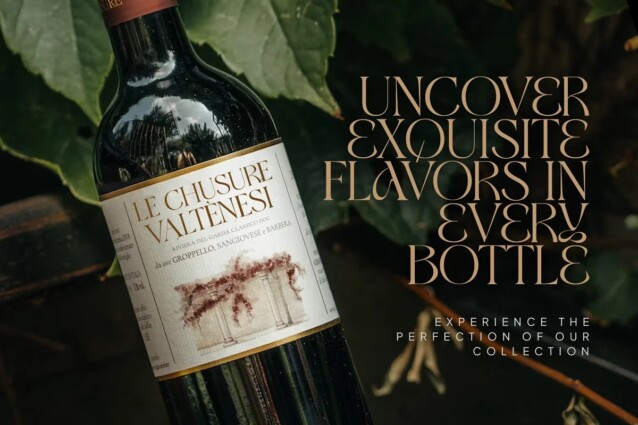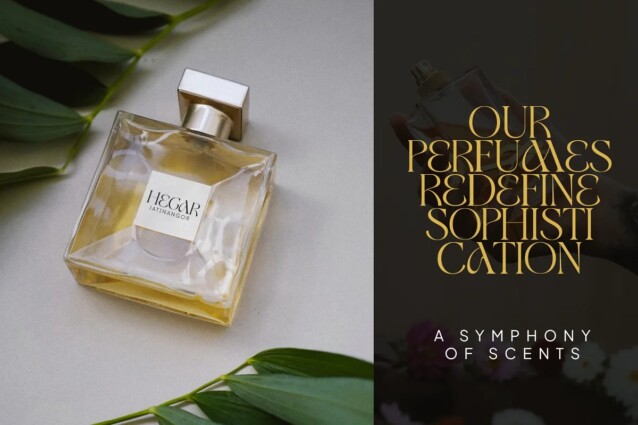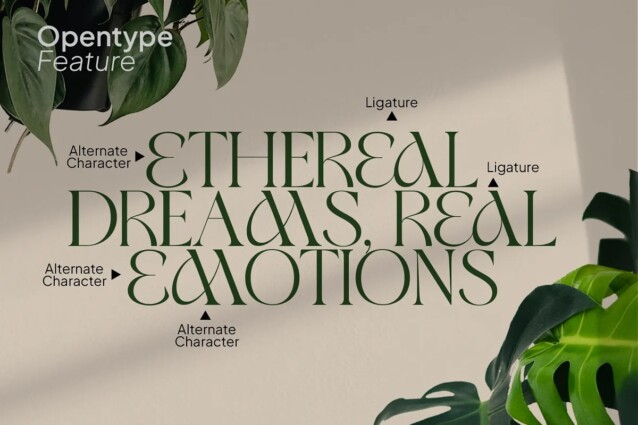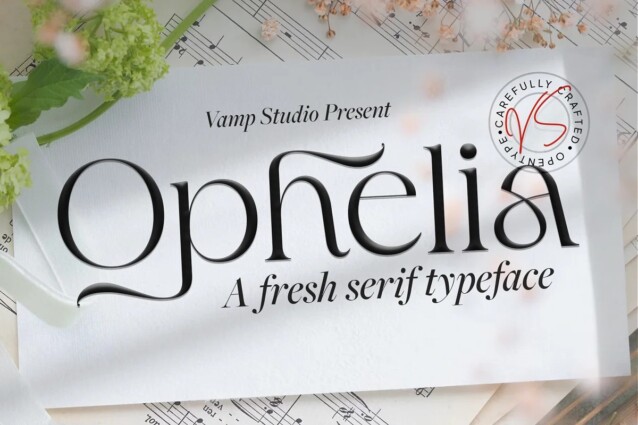
Ophelia Font
Ophelia Font is a sophisticated, charming serif font with a fashionable touch. This font looks very simple, clean, and elegant. Specially designed by skilled hands makes this font is the perfect fit for all your big projects.
Ophelia is perfect for branding projects, logo, wedding designs, social media posts, advertisements, product packaging, product designs, label, photography, watermark, invitation, stationery and any projects that need handwriting taste.